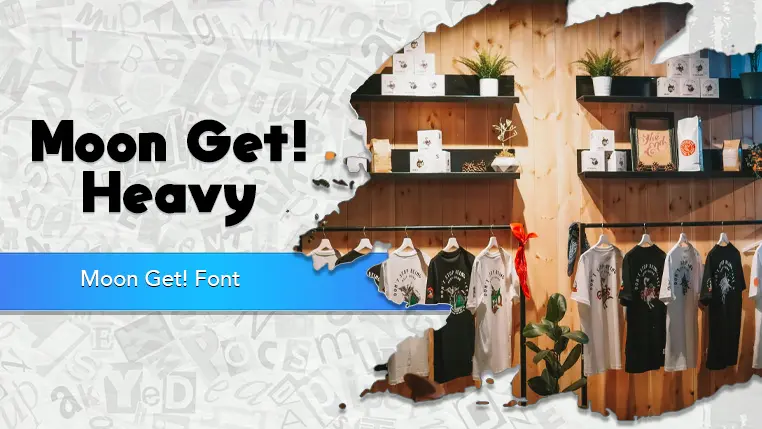
The Moon Get! font family may be ideal for you if you enjoy working on an artistic design project. The lively, expressive look of this typeface, which was created by MaxiGamer, makes it ideal for T-shirt and Apparel Design. Because of its playful nature, it can be used for things like party invitations, social media graphics, and other personal projects that need a fun and unique font. Its bold, blocky style and heavy weight make it excellent for headlines on posters, banners, and social media posts, where you need to grab attention quickly. This is the most obvious and fitting use. It's perfect for fan projects, game review sites, streaming graphics, or any content related to Super Mario Odyssey or Nintendo games in general. and other light-hearted visual projects.
Heavy are the one primary font styles of the Moon Get! font family. You may build dynamic, visually appealing text layouts with the distinct flair that each style offers. With crisp, readable lines and a relaxed tone.